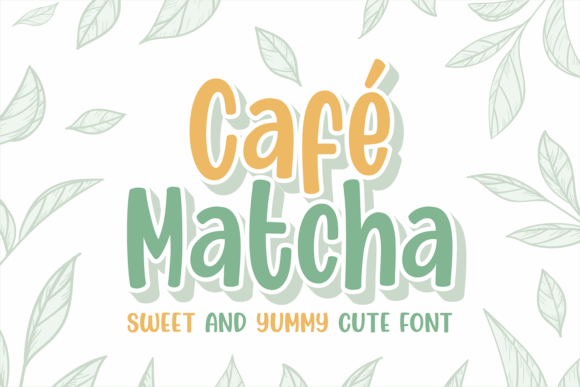
Journey into a world of delightful creations with Cafe Matcha Font, a display font exuding sweetness and charm. Crafted with meticulous care by Orenari, this typographic masterpiece dances across your screen, captivating hearts with its strong yet friendly demeanor. Its playful curves and elegant lines evoke a sense of joy and lightheartedness, promising to inject a touch of whimsy into any project.
Welcome to the world of Cafe Matcha Font, a display font that radiates warmth and cheer. Immerse yourself in a symphony of perfectly balanced strokes and curves, each carefully designed to convey a sense of fun and playfulness. Let your imagination soar as you explore the endless possibilities of this enchanting font.
Step into the spotlight with Cafe Matcha Font and elevate your designs to new heights. Its bold and playful personality is the perfect choice for adding a touch of magic to flyers, posters, social media graphics, product packaging, or any project that demands attention. Watch as your creations come alive with vibrancy and charm, captivating audiences and leaving a lasting impression.
With Cafe Matcha Font, you'll discover a font that effortlessly adapts to a myriad of styles and themes. Its versatility knows no bounds, seamlessly transitioning from playful and whimsical to elegant and sophisticated. Whether you're crafting a whimsical invitation, designing a cheerful logo, or creating eye-catching marketing materials, Cafe Matcha Font will seamlessly blend with your vision.
Don't settle for ordinary. Embrace the extraordinary with Cafe Matcha Font. Unleash your creativity and let your designs bloom with personality. Join the growing community of designers and creatives who have discovered the magic of Cafe Matcha Font and transformed their projects into captivating masterpieces.